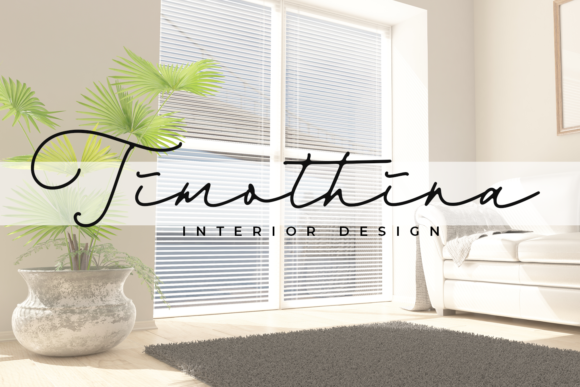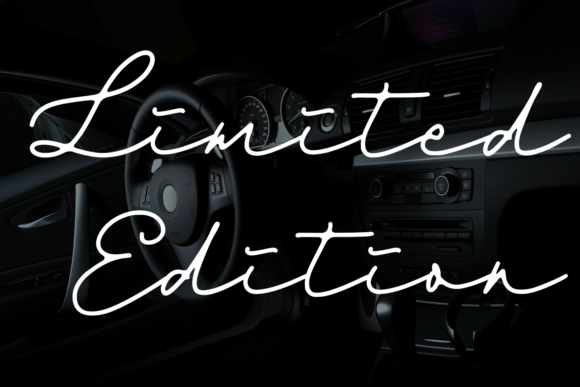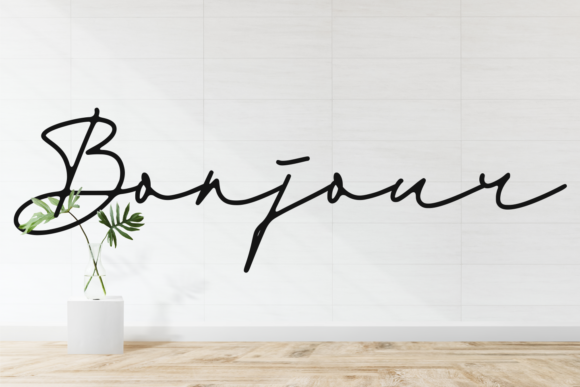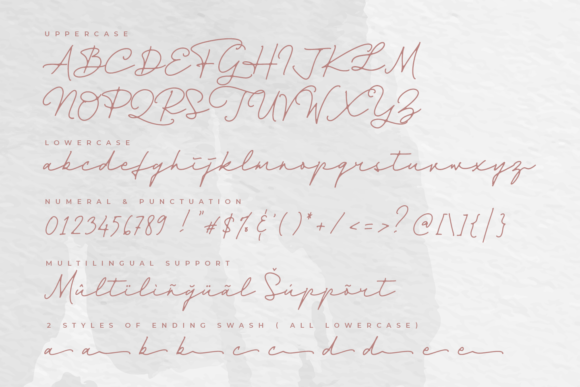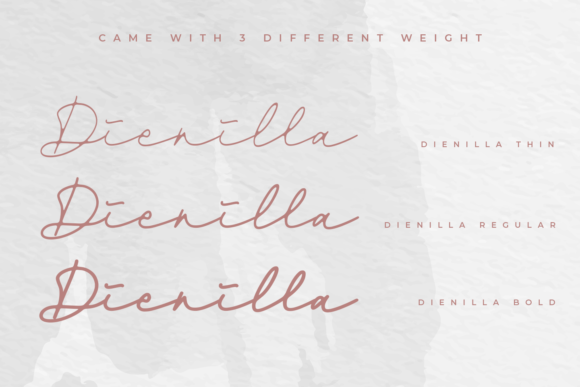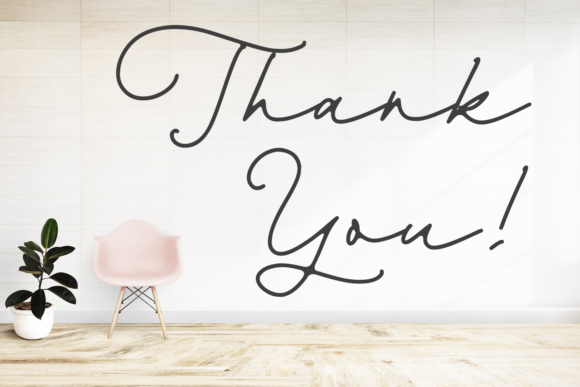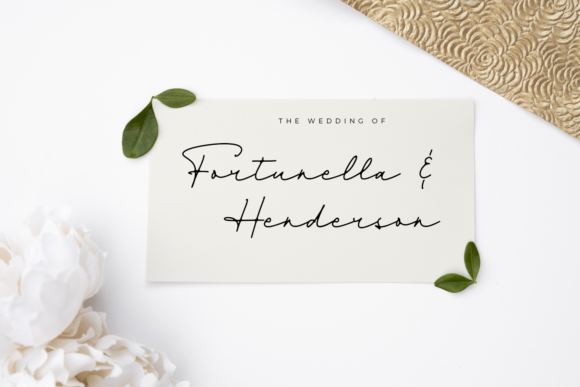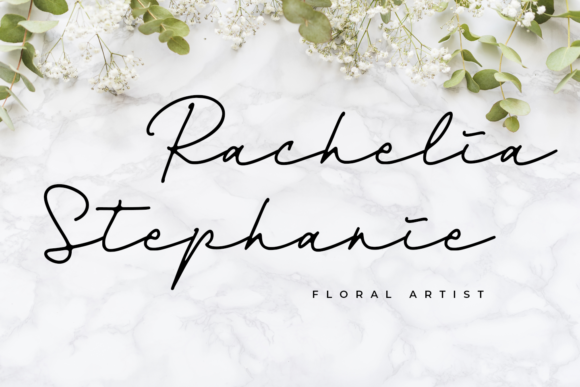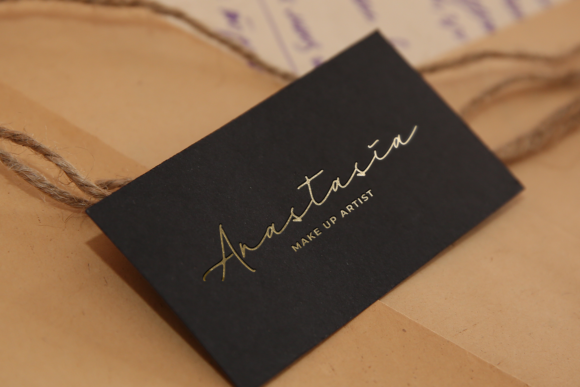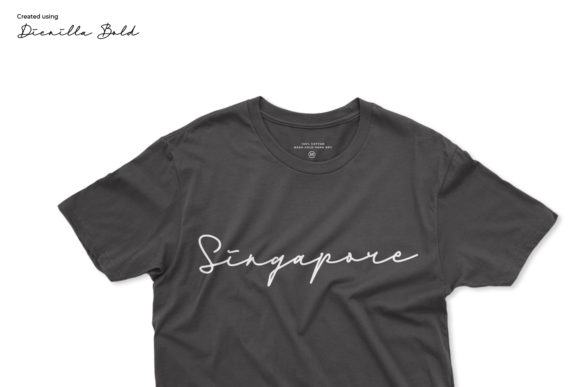
Dienilla Font
About Dienilla Font
Dienilla is a luxury handwritten font. It features gorgeous swashes and ligatures that make this script incredibly versatile. Whether you’re looking for fonts for Instagram or calligraphy scripts for DIY projects, Dienilla will turn any creative idea into a true piece of art!